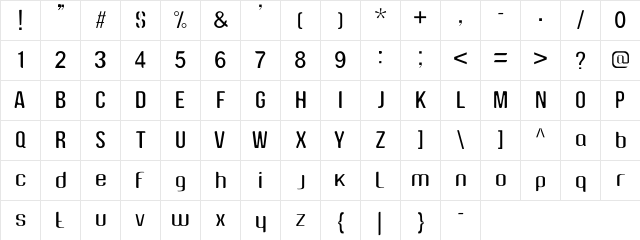
Zeynalabdin Regular
| Designer | Mahir Huseynov |
Design Context for Zeynalabdin Typeface
Zeynalabdin takes a measured approach to typography — its balanced proportions and neutral character make it a reliable workhorse for both digital and print work.